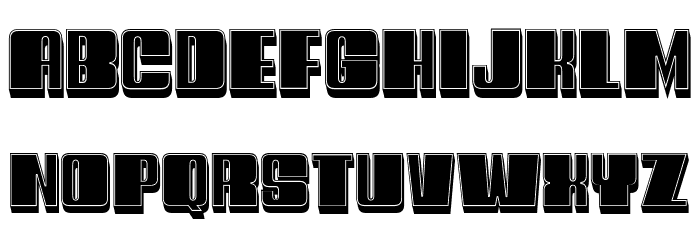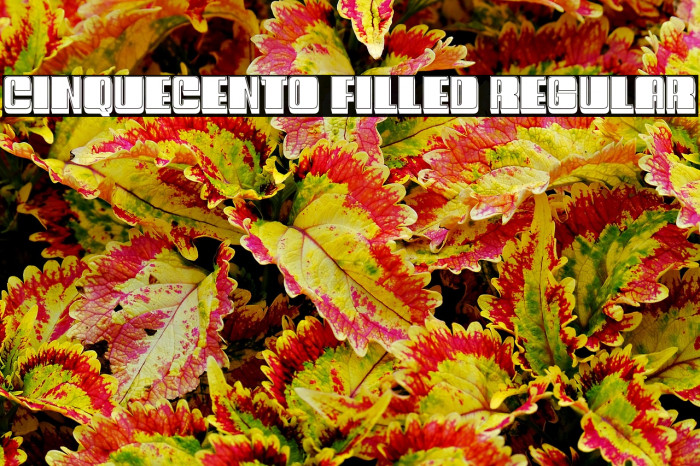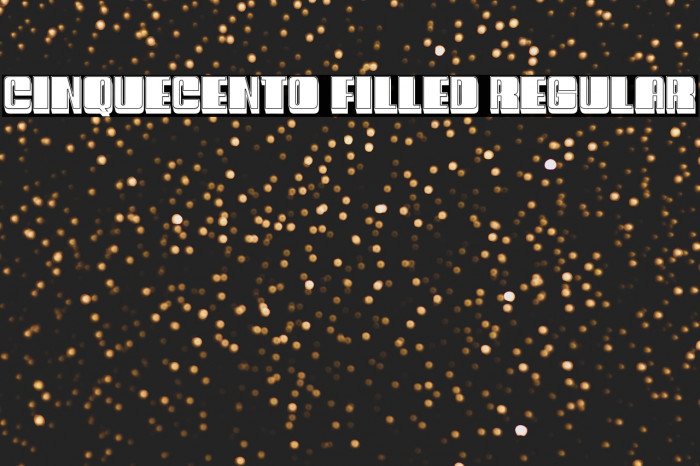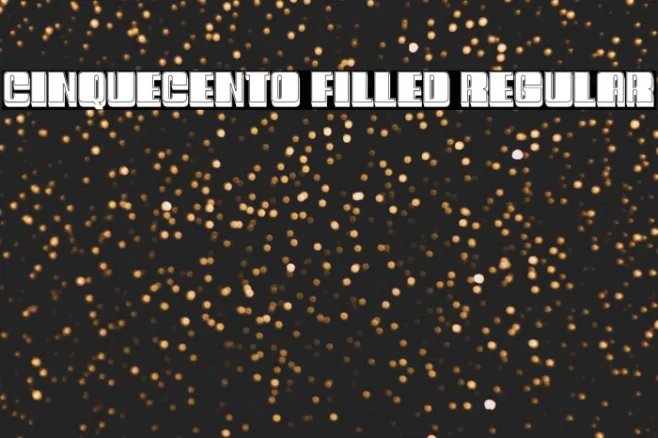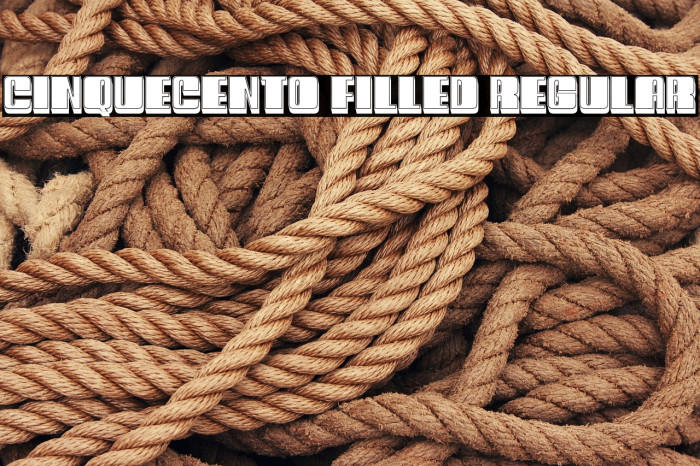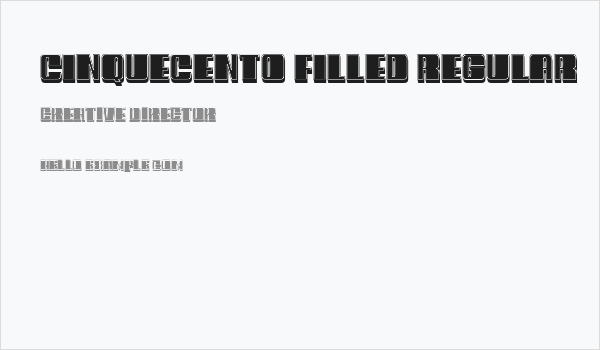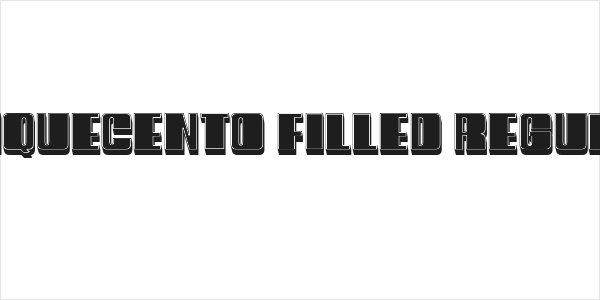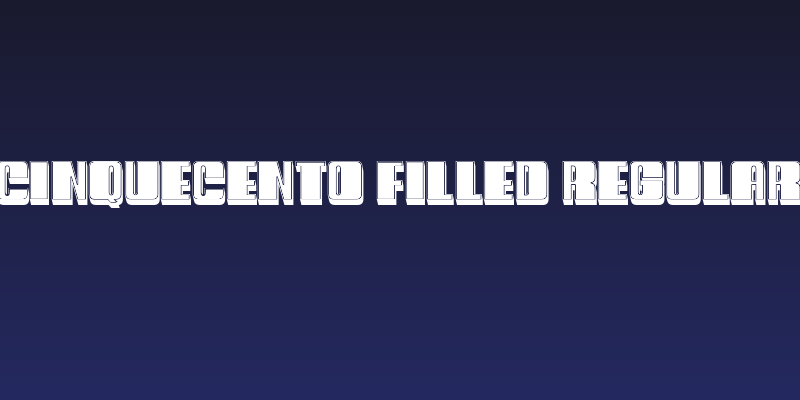
Cinquecento Filled Regular Font
Cinquecento Filled Regular Description
This font features a bold, impactful style with a filled, three-dimensional appearance. The characters are blocky and robust, with a strong presence that makes them ideal for attention-grabbing designs. The uppercase letters are uniformly designed, with consistent height and width, creating a cohesive look. The font's filled nature gives it a solid, substantial feel, while the slight shadow effect adds depth and dimension. This style is reminiscent of vintage or retro designs, making it suitable for projects that require a touch of nostalgia or a bold statement.
| Proposed Projects | Ideal for posters, headlines, logos, and any design requiring a strong, retro aesthetic. |